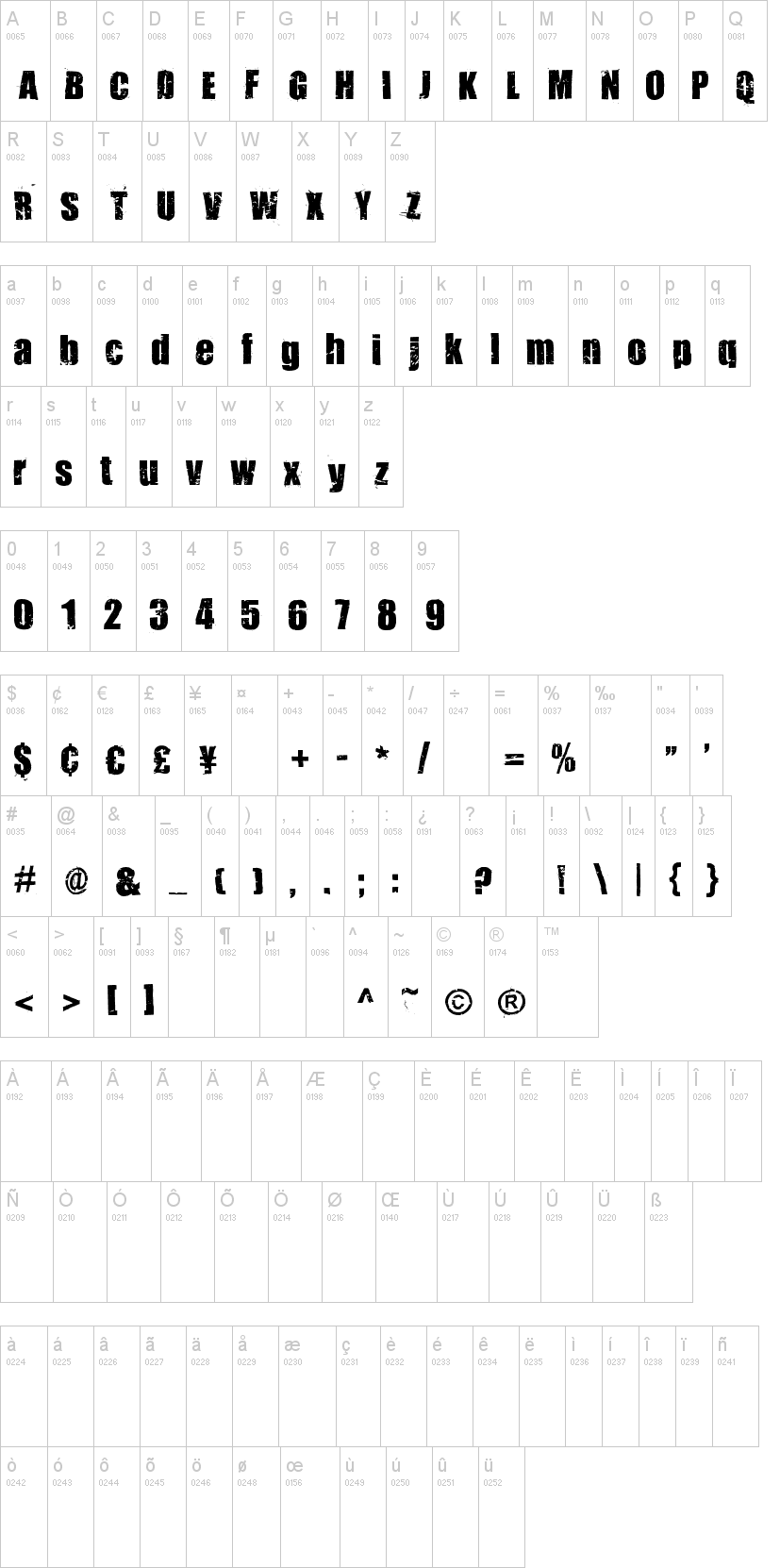
Шрифт 321 Impact
Added euro, cent, pound, yen, registered, copyright symbols
This font was made by printing out a couple pages full
of impact letters, folding up the paper and
putting them in my back pocket for the day. Not having
a scanner at the time, I took pics of each page,
traced them in Illustrator, and used fontlab for the
creation of the font itself.